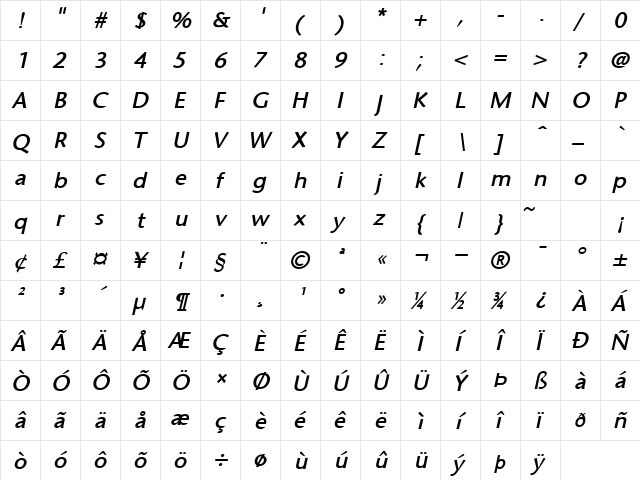
Optimist Bold Italic
Design Context for Optimist Typeface
Optimist takes a measured approach to typography — its balanced proportions and neutral character make it a reliable workhorse for both digital and print work. The dynamic lean of this cut emphasises speed and emphasis in any layout. Its bold stroke weight gives it real presence on the page.
Pro Tip: Use Optimist for emphasis, pull quotes, and subheadings where its slanted energy can add rhythm to the layout.